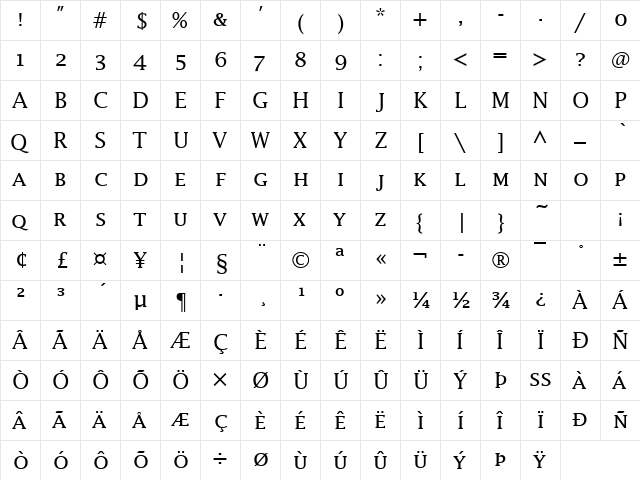
Lucida Becker Caps Roman Regular
Design Context for Lucida Becker Caps Roman Typeface
Lucida Becker Caps Roman offers clean, dependable letterforms without strong stylistic allegiance, making it a practical choice for designers who need flexibility.